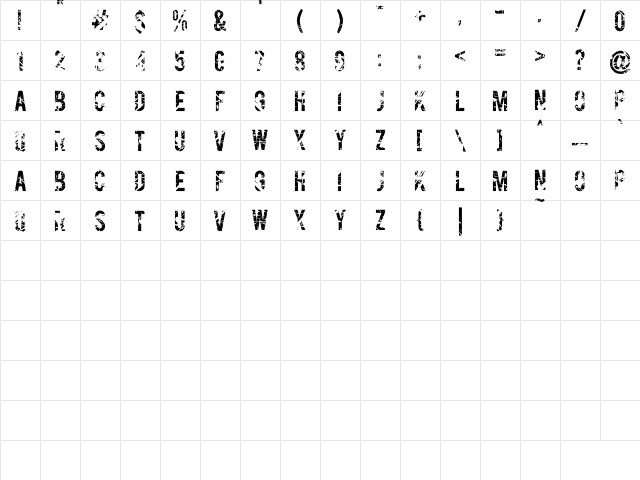
Gesso Regular
| Designer | Ryoichi Tsunekawa |
Design Context for Gesso Typeface
Gesso is a composed and adaptable typeface that performs quietly and consistently across a wide range of design contexts.